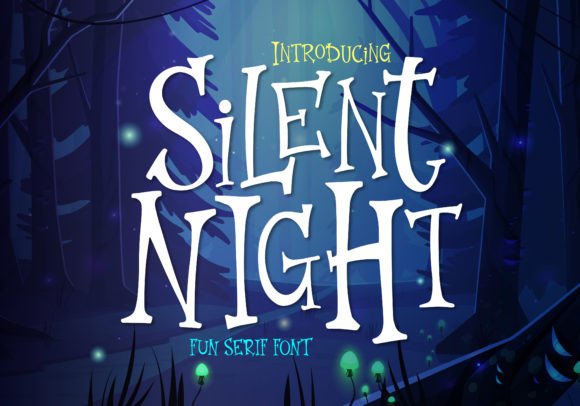
Introducing the captivating and enchanting Silent Night Font collection, specially crafted by BB Type Studios. If you're in search of the perfect font for winter, look no further! Silent Night Font is here to mesmerize and elevate your designs, making them the talk of the town.
This display font is not just limited to Halloween parties; it's a versatile addition to your creative arsenal. With Silent Night, you can effortlessly bring your imagination to life and create designs that will leave a lasting impression. Whether you're working on invitations, posters, or social media graphics, this font will help you stand out from the crowd.
One of the standout features of Silent Night Font is its PUA encoding. This means that all the stunning glyphs and ligatures are easily accessible to you. Unlock a world of possibilities and effortlessly create eye-catching designs that will captivate your audience.
Imagine the excitement and joy that will fill the air when your Halloween celebration features designs created with Silent Night Font. Its unique and whimsical style will bring a delightful touch to your event, making it an unforgettable experience for everyone involved.
But it doesn't stop there. Silent Night Font is not just limited to Halloween. Its versatility allows you to use it in various projects throughout the winter season. Create cozy and inviting designs for holiday cards, festive banners, or even winter-themed websites. Let the magic of Silent Night Font transport your audience to a world of wonder and warmth.
Don't settle for ordinary fonts that fail to evoke emotion and fail to make an impact. Choose Silent Night Font to add that extra touch of charm and creativity to your designs. This font is not just a tool; it's an experience. Let it be the secret ingredient that sets your creations apart and leaves a lasting impression on your audience.